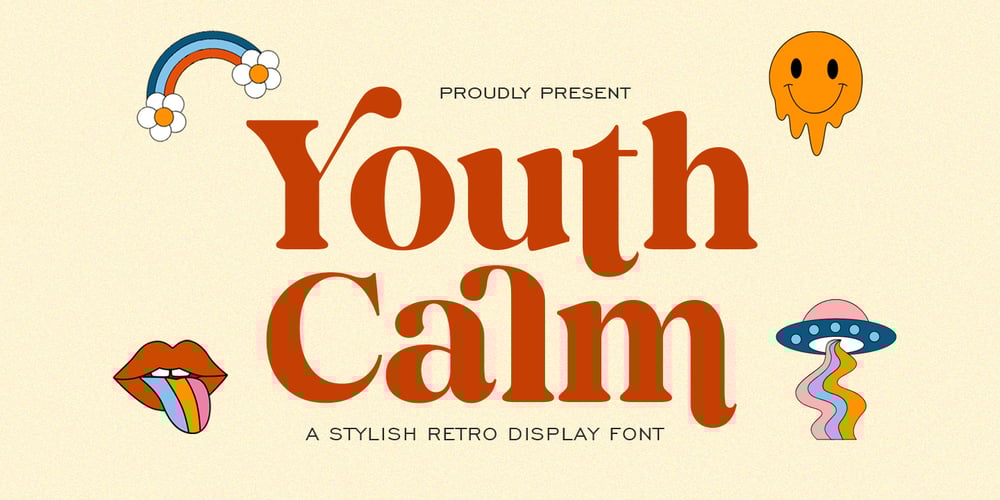
Youth Calm Font Family was designed by Bayu Suwirya and published by Illushvara. Youth Calm contains 1 styles and family package options. Hello,Youth Calm is a stylish, retro serif display font.Its funk and groove will definitely come in handy when you need to create some relaxed, laid-back designs.FEATURES :UppercaseLowercaseNumberPunctuationMultilingualPUA EncodeOpentype CharacterAlternatesLigaturesIf you have any question, don’t hesitate to contact me. Happy Designing !!!Thank You,Illushvara Design